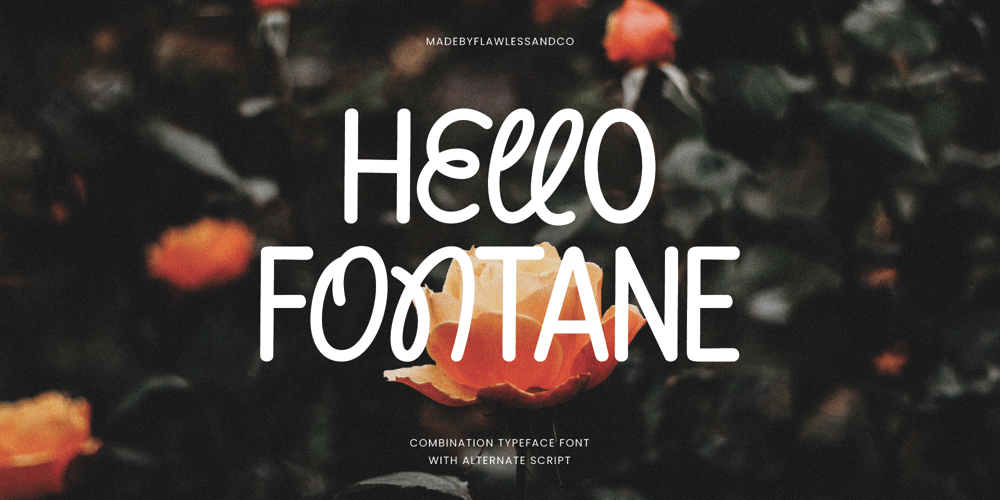
Hello Fontane
Hello Fontane font
Hello Fontane Font Family was designed by Achmad Yani and published by Flawlessandco. Hello Fontane contains 1 styles and family package options. Hello Fontane – Sans Serif with Alternate Script Font, Sans Serif Font, Script Font, Branding Font, Logo Font, Combination Font, Wedding Font, Trademark Font, Canva Font, Cursive Font, Cricut Font, Procreate FontIntroducing “Hello Fontane” a font combination sans serif with alternate script. Experience the perfect harmony of modernity and personality with “Hello Fontane,” a unique combination font that pairs a sleek sans serif typeface with an alternate script full of handwritten charm. Whether you’re crafting invitations, branding materials, or social media graphics, Hello Fontane offers the versatility and style to elevate your designs to new heights.Keywords: Script Font, Sans Serif FontThere’s some connected letters and some alternates that suitable for any graphic designs such as branding materials, t-shirt, print, business cards, logo, poster, t-shirt, photography, quotes .etcThis font support for some multilingual. Also contains uppercase A-Z and lowercase a-z, alternate character, numbers 0-9, and some punctuation.If you need help, just write me! Thanks so much for checking out my shop!